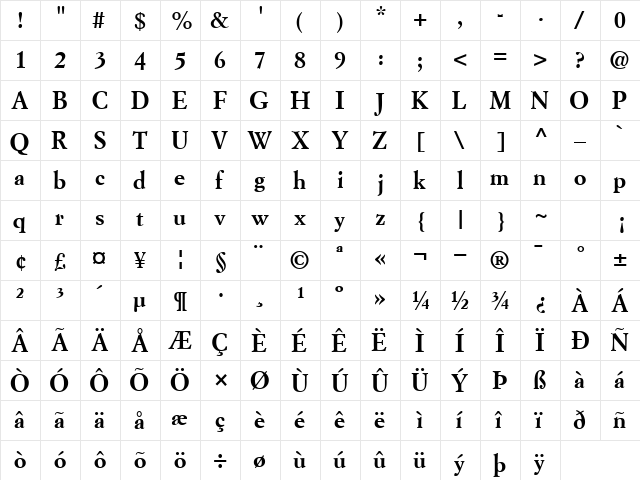
FlorentineGaramondSSK Bold
Design Context for FlorentineGaramondSSK Typeface
FlorentineGaramondSSK takes a measured approach to typography — its balanced proportions and neutral character make it a reliable workhorse for both digital and print work. The heavy weight commands attention and anchors typographic hierarchies.